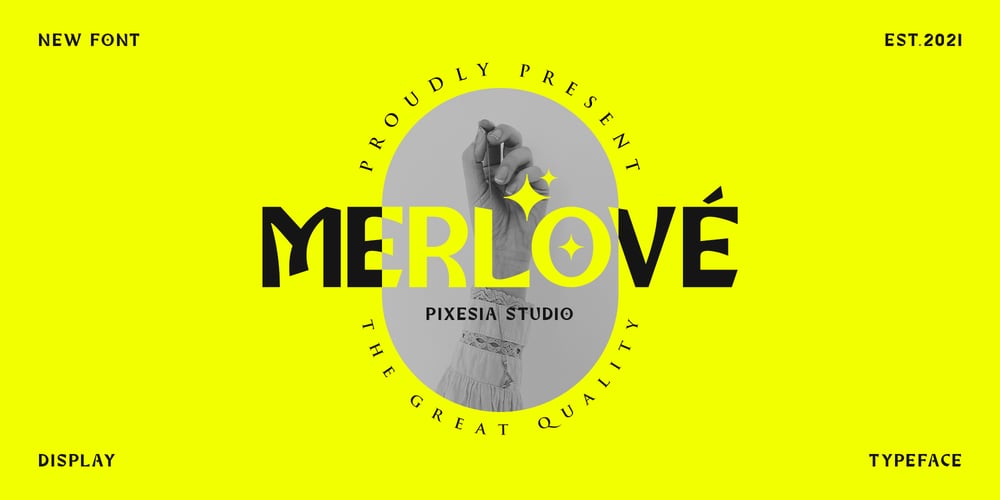
Merlove Font Family was designed by Abul Almaududi and published by Pixesia Studio. Merlove contains 1 styles and family package options. Introducing Merlove – A Contemporary Display FontMerlove is a strong and contemporary display font. It has an unique vintage style, that is perfect for branding. Add it to your most creative ideas and notice how it makes them come alive!FEATURES- Stylistic Alternates- PUA Encoded- ALL Caps- Numbering and Punctuations- Multilingual Support- Works on PC or Mac- Simple Installation- Support Adobe Illustrator, Adobe Photoshop, Adobe InDesign, also works on Microsoft WordHope you Like it.Thanks.